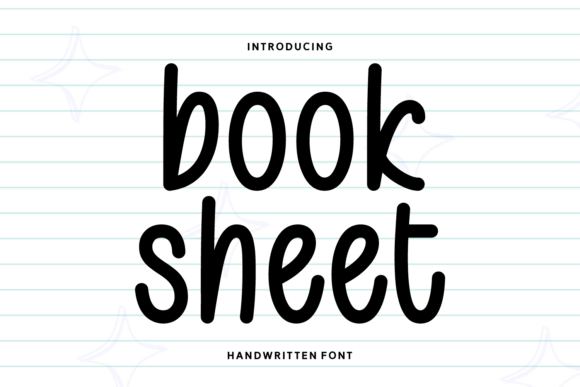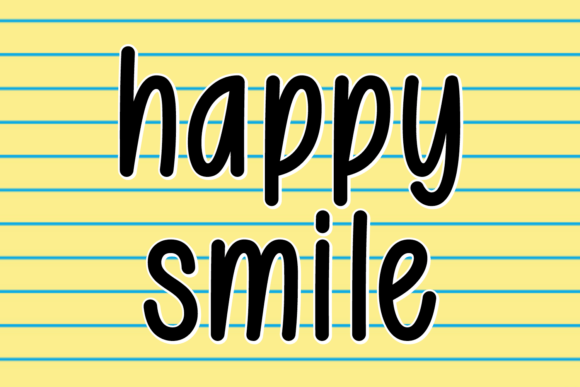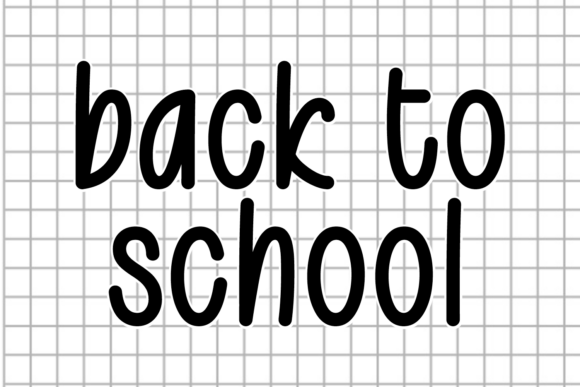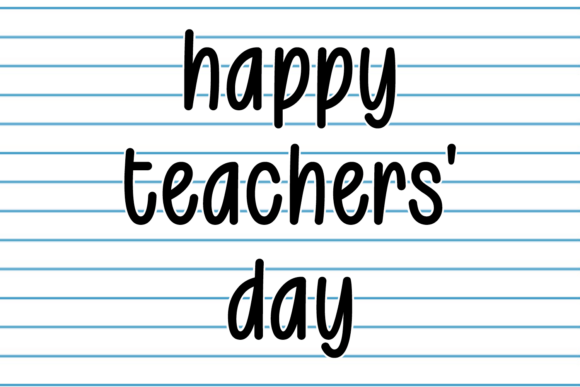
Book Sheet Font
About the Book Sheet Font
The wait is over! The incredible Book Sheet Font is now available for your design toolkit. Introducing “Book Sheet Handwritten,” a charming fusion of elegance, style, and modernity. This is not just a font; it’s a versatile artistic tool tailored for countless applications. Its handwritten appeal has the potential to become the life force of logos, adding a personalized touch. Its elegance graces wedding stationary, redefining the charm of your special day. The font’s trendy attributes are ideal for high-fashion projections or to infuse a feminine touch to your designs. With its stylish and modern attributes, product designs and beauty promotions stand out, making bold statements that connect instantly.
Book Sheet Font Usage Examples
Book Sheet Font Example